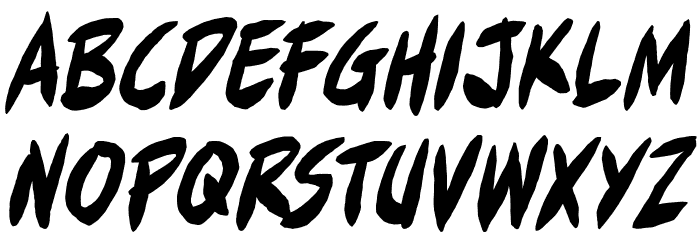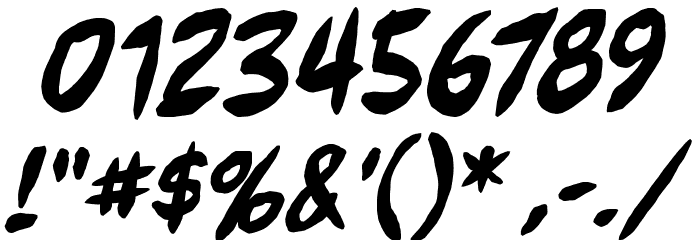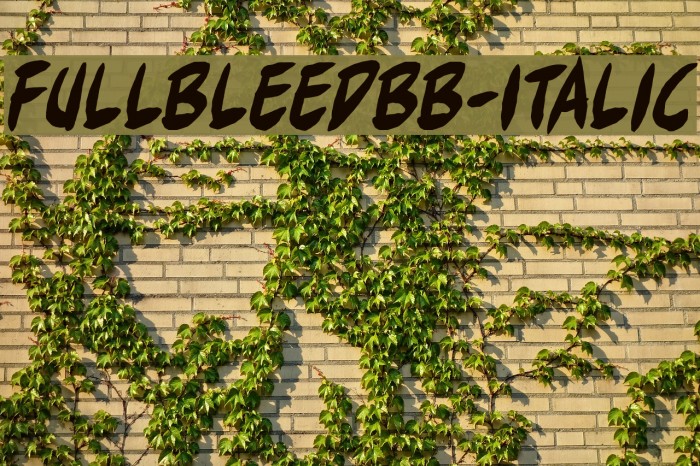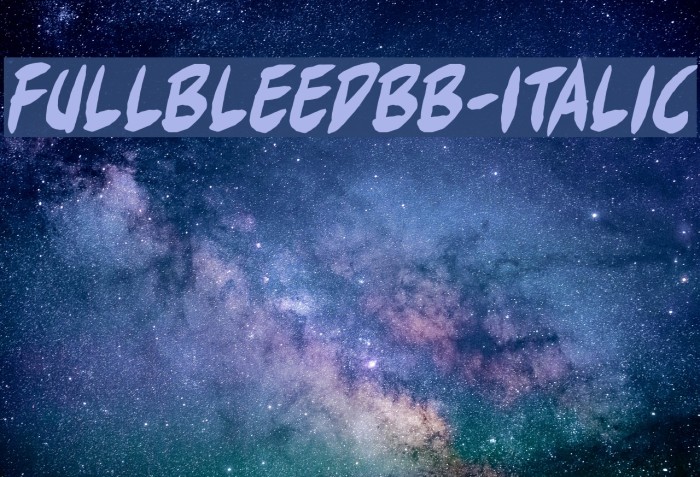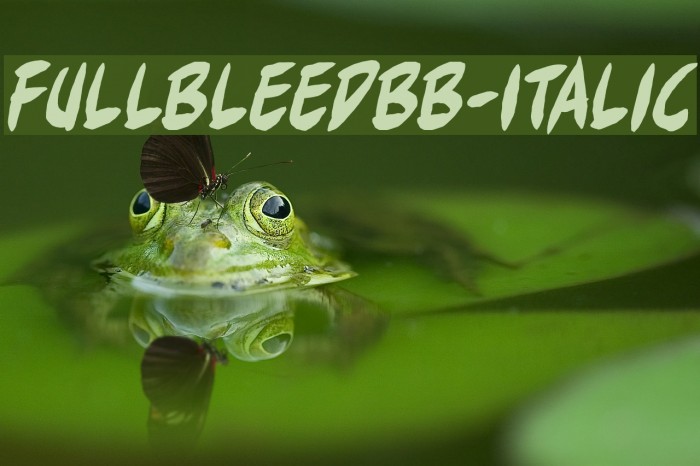
FullBleedBB-Italic Font
This font exudes a bold and dynamic presence with its thick, brush-like strokes that create a sense of movement and energy. The characters are slightly slanted, adding to the italicized effect, and each letter is crafted with a sense of urgency and flair. The uppercase and lowercase letters maintain a consistent style, with rounded edges and a hand-drawn appearance that gives it a personal touch. The numbers and special characters follow the same aesthetic, ensuring a cohesive look across all text. This font is perfect for making a statement, whether in headlines or creative projects.
A bold, brush-style italic font with dynamic, hand-drawn strokes.
- Proposed Projects: Ideal for posters, branding, and any project needing a bold, artistic touch.